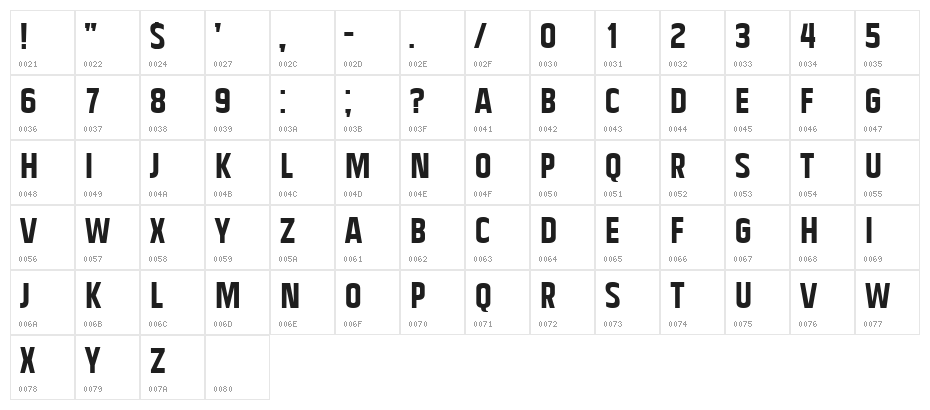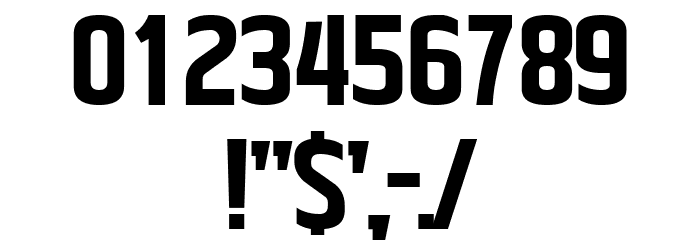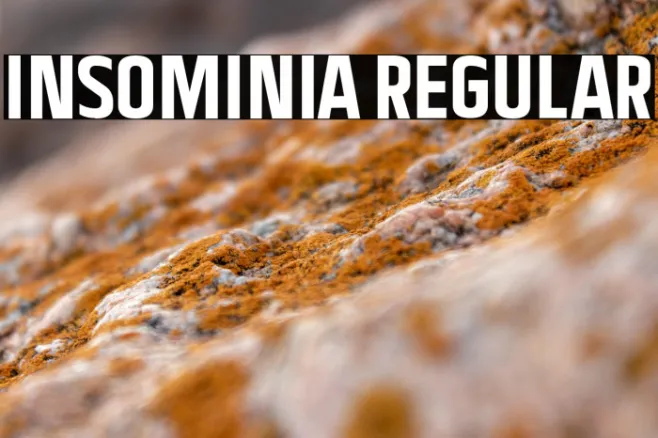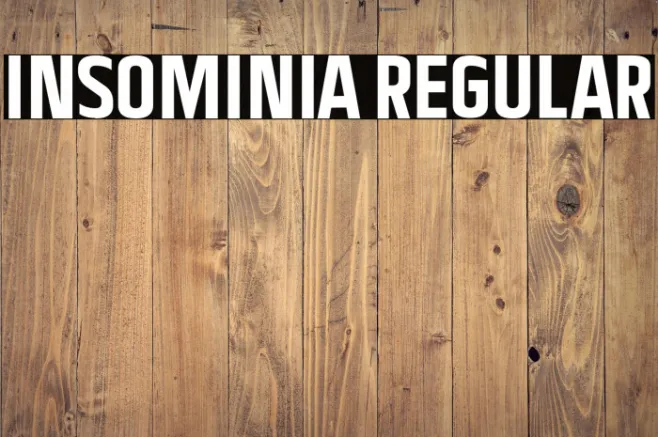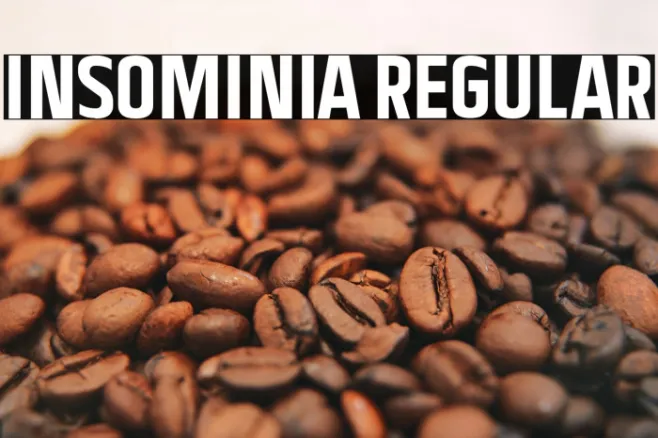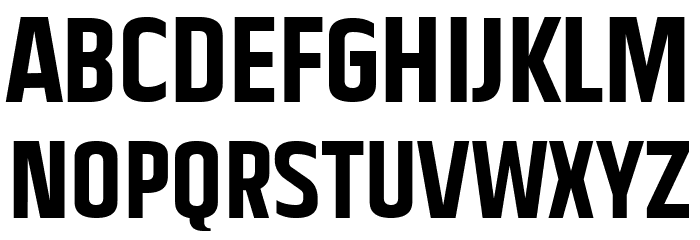
Insominia Regular Font
Insominia Regular Description
This font features a bold and impactful design with strong, clean lines and a modern aesthetic. The uppercase letters are uniform in height, creating a cohesive and balanced look. The numerals are equally bold, ensuring readability and emphasis. The special characters maintain the same weight and style, providing a consistent appearance across all elements. The overall design is straightforward, with no additional flourishes or embellishments, making it suitable for a variety of applications where clarity and impact are essential.
| Proposed Projects | Ideal for headlines, posters, branding, and any design requiring a strong visual impact. |